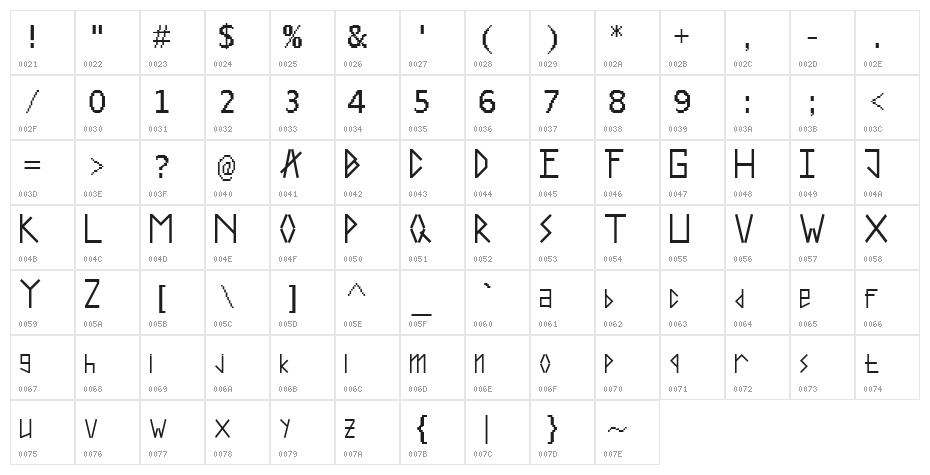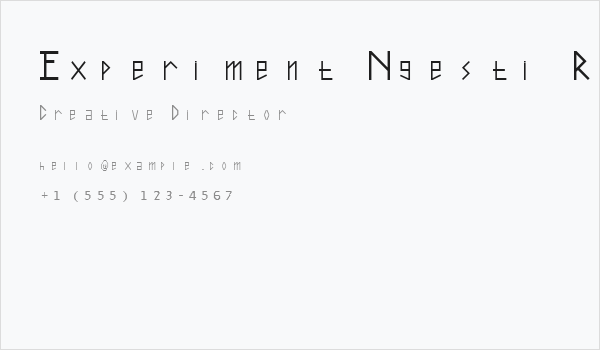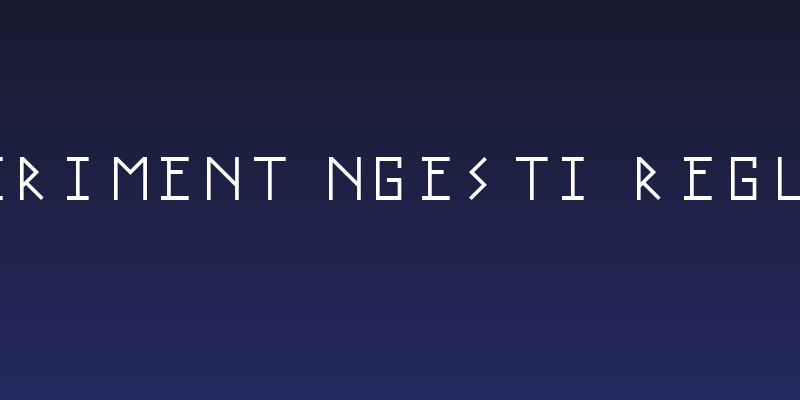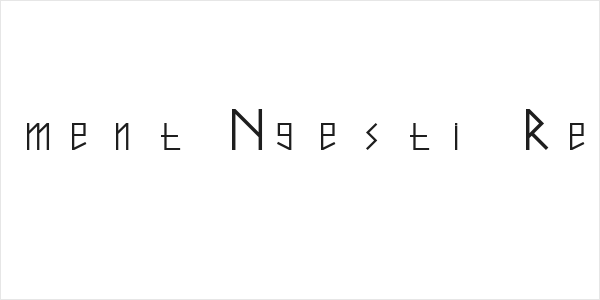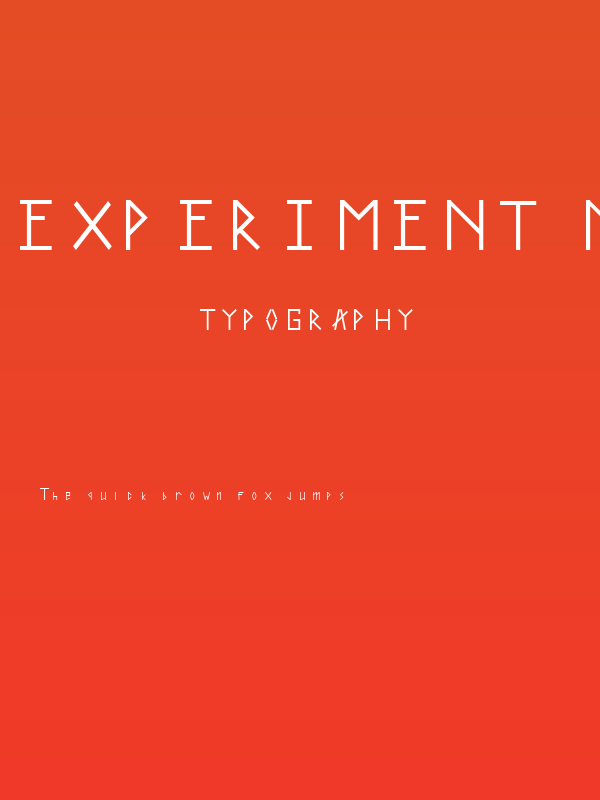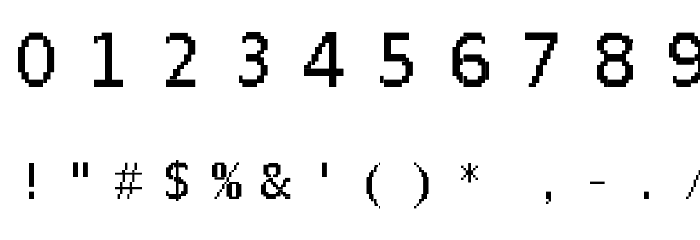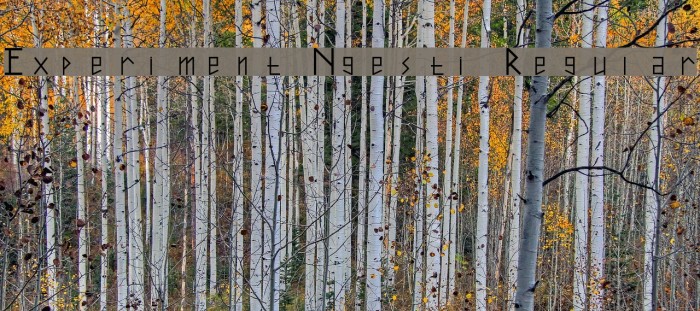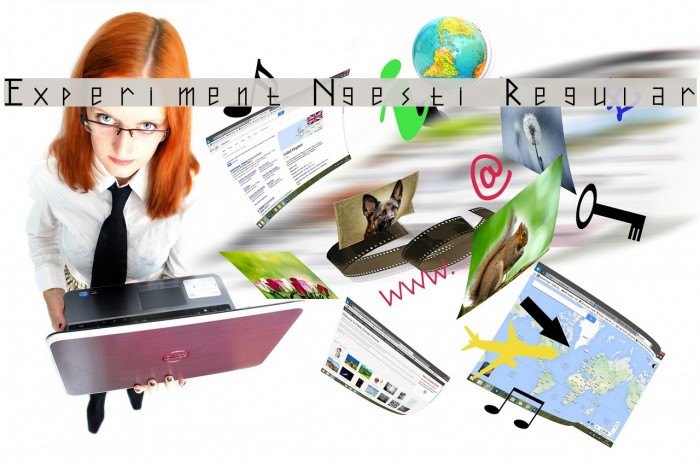
Experiment Ngesti Regular Font
Experiment Ngesti Regular Description
This font features a unique and experimental design with geometric and angular elements. The uppercase letters exhibit a distinct, sharp-edged style, reminiscent of futuristic or digital aesthetics. The lowercase letters maintain a similar angular form, providing consistency across the typeface. Numbers are bold and pixelated, adding to the digital feel, while special characters are designed to match the overall angular theme. The font's design is both modern and avant-garde, making it suitable for creative and unconventional projects.
| Proposed Projects | Ideal for digital art, video game graphics, sci-fi themed posters, and modern branding. |